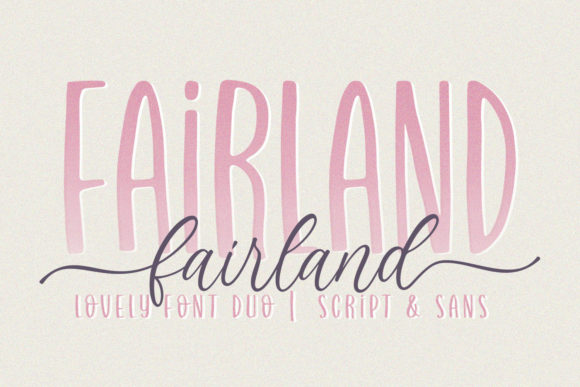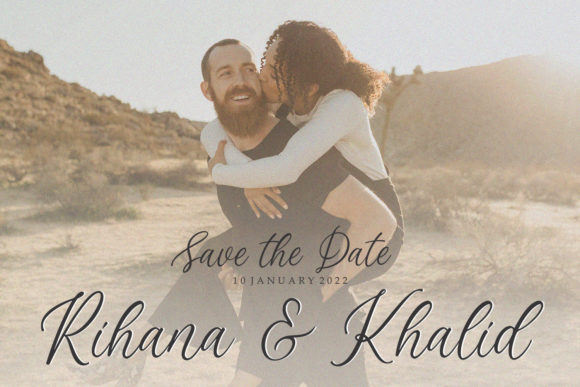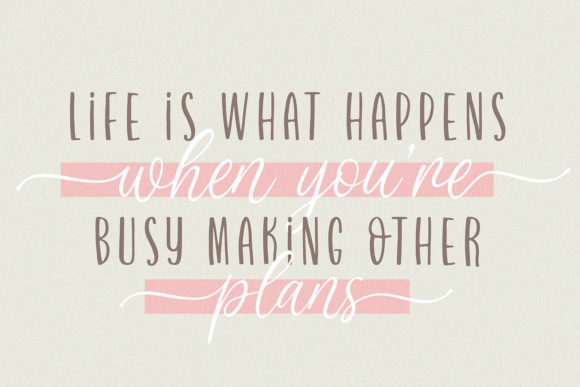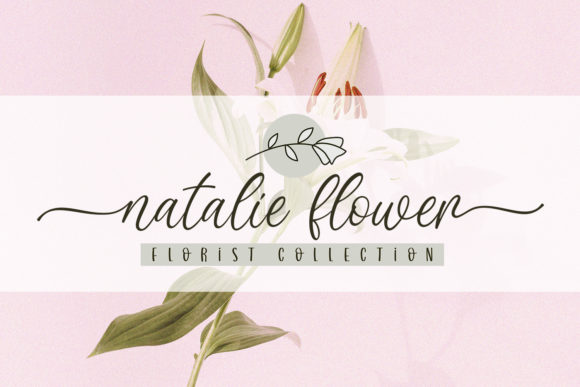
Fairland Duo Font
About the Fairland Duo Font
The wait is over! The incredible Fairland Duo Font is now available for your design toolkit. Fairland is a duo-styled handwritten and sans serif font that feels equally charming and delicate.
Fairland Duo’s delicate yet charming nature makes it ideal for branding projects requiring a touch of elegance, particularly logos, short taglines, and invitations. It also works well in packaging design for high-end products or boutique brands. However, its handwritten style is less suitable for body text or UI elements; the inconsistent stroke weights would hinder readability in large blocks of text.
Its inherent softness is best complemented by pairing it with a clean, geometric sans-serif like Montserrat for a modern contrast, or a classic serif like Garamond for a more timeless feel. A playful script font could also work well for specific applications, enhancing the overall handwritten aesthetic.
The font’s personality is best described as sophisticated yet approachable; it projects a sense of refined charm without appearing overly formal.